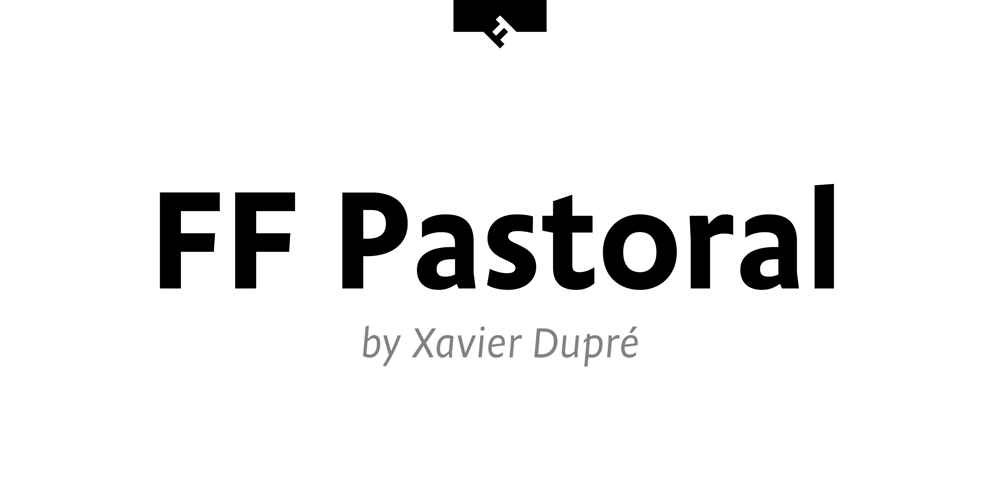
FF Pastoral Font Family was designed by Xavier Dupré and published by FontFont. FF Pastoral contains 16 styles and family package options. A sturdy workhorse with the grace of a gazelle, the FF Pastoral typeface family marries pure craftsmanship with rapturous excesses of form. With his fifteenth release under the FontFont brand, prolific French designer Xavier Dupré has filled a typographic toolbox with plentiful options ranging from a tender, feathery Thin to a robust, healthy Black. At a glance, FF Pastoral appears deceptively simple, particularly in the middle weights. That surface serenity is intentional and allows for easy reading and quick comprehension of short blocks of copy. Upon closer inspection, FF Pastoral is complex and nuanced, carrying a balanced tension in its forms. This plays particularly well in magazine spreads and corporate logos, where uniqueness is a virtue. In creating his latest design, Dupré drew inspiration from a tasteful mix of references, combining diverse elements with a deft hand. While its letter shapes were informed by humanist-geometric hybrid Gill Sans, FF Pastoral’s proportions have been optimized for contemporary typography. Slightly condensed but generously spaced, FF Pastoral features a tall x-height, open counters, and subtle, sprightly italics slanted at just 5°. Proportional oldstyle figures are the default in the family, with tabular and lining numbers and fractions accessible through OpenType features. Elegant details evocative of calligraphy judiciously pepper the FF Pastoral glyph set. The ‘e’ bears an oblique crossbar, while the right leg of the ‘K’ and the ‘R’ are insouciantly curved in both the upright and italic variants. Further flourishes appear throughout the italics, notably in the ‘T’ and the ‘Z’, the gloriously looped tail of the ‘G’, and an extraordinary ampersand. Sharp-eyed fans of Dupré’s work may feel like they’re in familiar territory, and they would be right. An early version of FF Pastoral sprang to life in 2017 as Malis, a family in four weights on the heavier side of the spectrum. Over time, Dupré refined his original design, expanding it with four lighter styles and including true italics for all. The lightest weights are ethereal, with exquisitely delicate strokes drawing the eye in and across a line of type. The most substantial styles are tremendous in their power, allowing text to make a deep impression in print or on screen. Fully fleshed out, FF Pastoral works sublimely in a vast array of text and display settings. Dupré sees his latest FontFont offering as a ‘cultural’ typeface, perfect for the pages of an oversized coffee-table book or business communications where warmth and informality will win the day. Born in Aubenas, France (1977), Xavier Dupré is a gifted user of type as well as an award-winning type designer and lettering artist. After training in graphic design in Paris, Dupré studied calligraphy and typography at the Scriptorium de Toulouse. Since releasing FF Parango in 2001, Dupré has published such FontFont classics as the FF Absara and FF Sanuk superfamilies, FF Megano, FF Tartine, and FF Yoga. A designer of Khmer fonts as well as Latin typefaces, Dupré splits his time between Europe and Asia.